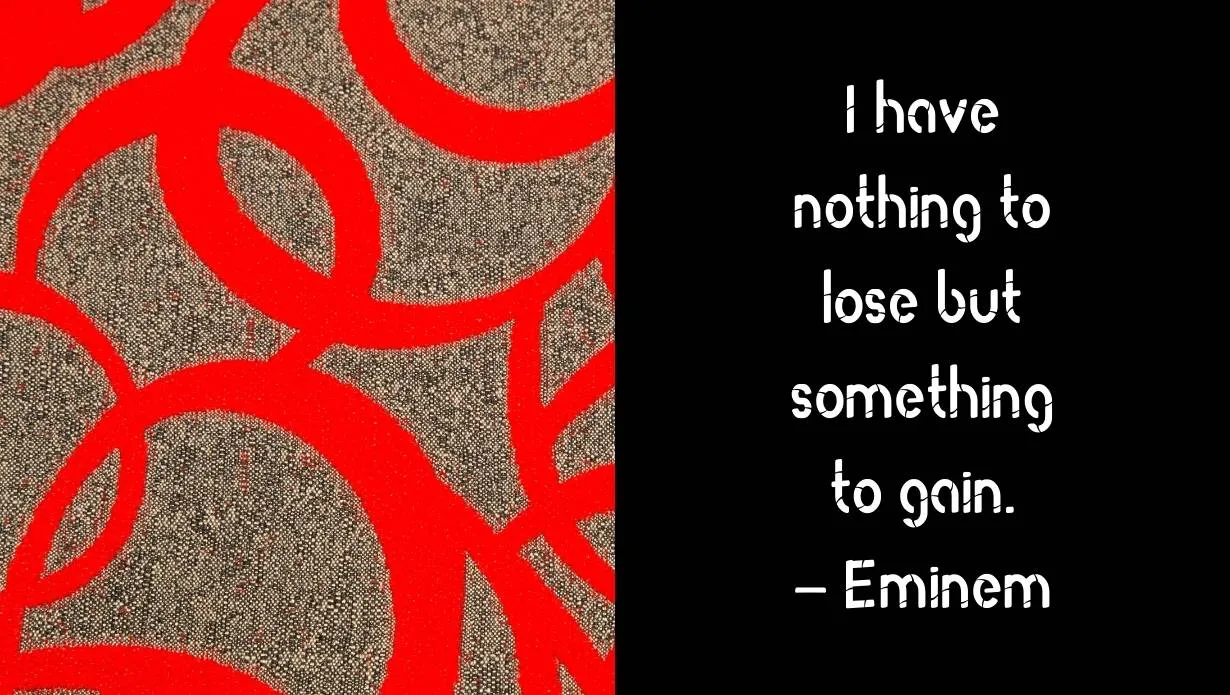
We present a very stylish and fascinating typeface that is famous with the name Roda Bamboo Font. Serkan Dilemek is the main designer of this typeface. This typeface belongs to the Fancy category and is suitable for any kind of project.
This stunning typeface was released in 2019. Roda Bamboo Font has a very chic and modern look that will give your text a unique edge. This font family includes Regular, Bold, and Italic styles. This typeface is available in OTF and TTF formats. It is well specified by the CSS and SVG. For more designs, obelix pro font is available that works in the same manner.
Roda Bamboo Font Family
| Name | Roda Bamboo Font |
| Designer | Serkan Dilemek |